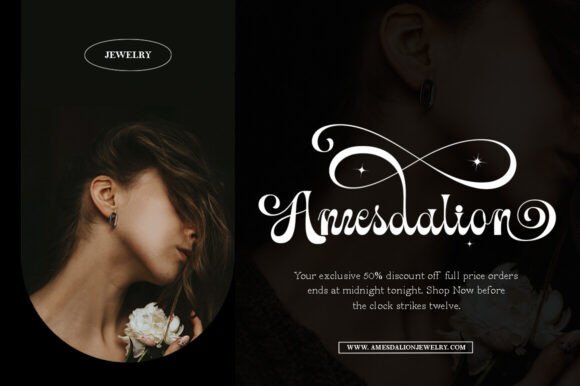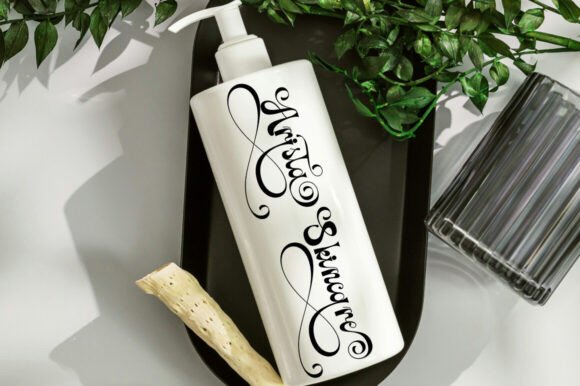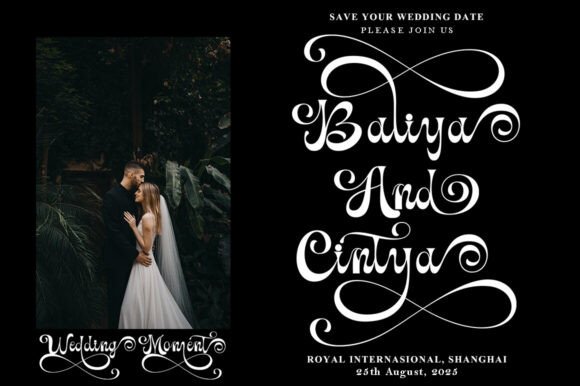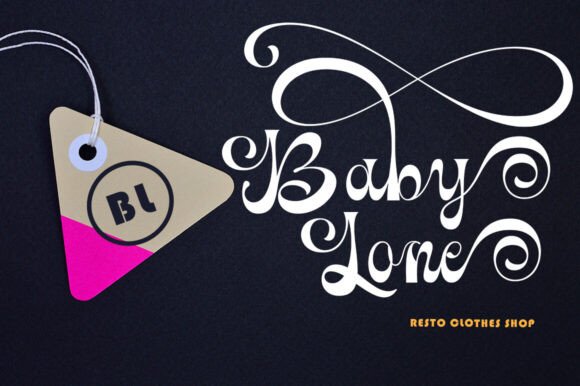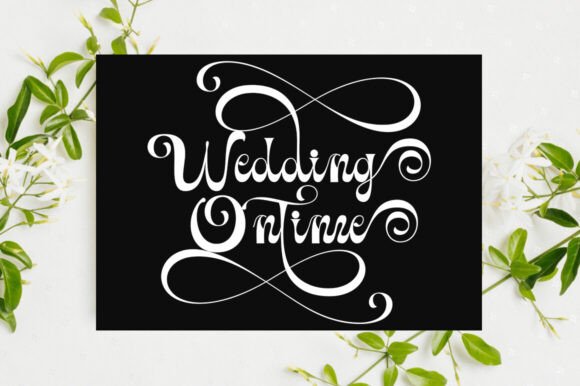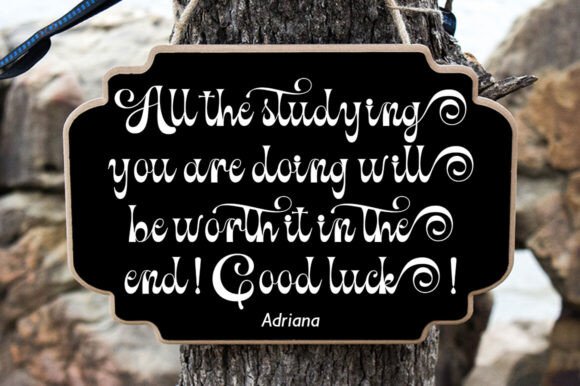
The Art of Sophistication: Introducing Bulgota Font
Have you ever stared at a blank page, searching for the perfect font to convey the essence of your brand? It’s that moment of creative frustration, when the right words and images just don’t seem to come together. But what if you could infuse your designs with a touch of timeless elegance, a dash of sophistication that elevates your work to new heights?
Enter Bulgota Font, a luxurious script font designed to add a sense of refinement and luxury to your upscale designs. With its flowing curves and delicate strokes, every letter is a work of art that exudes class and style. Whether you’re designing a high-end fashion label, a luxury hotel brochure, or a premium product packaging, Bulgota Font is the perfect choice to give your work a touch of sophistication.
Bulgota Font Key Features
- Font Family: Bulgota
- Unique Characteristics: Bulgota Font features a unique blend of Latin and Cyrillic scripts, making it suitable for multilingual applications
Bulgota Font Review
I recently had the chance to work with the Bulgota font, and I’m excited to share my thoughts on this unique typeface.
- The Bulgota font has a beautiful, hand-crafted feel to it, making it perfect for projects that require a personal touch.
- The font’s irregularities and imperfections give it a charming, human quality that sets it apart from more uniform fonts.
- The font’s range of weights and styles offers a lot of flexibility, making it suitable for a wide range of design applications.
- The Bulgota font’s irregularities can sometimes make it difficult to read, particularly in smaller sizes or at a distance.
- The font’s unique style may not be to everyone’s taste, and some designers may find it too unconventional for certain projects.
Overall, I think the Bulgota font is a great choice for designers who want to add a touch of personality to their work. While it may not be suitable for every project, its unique charm and flexibility make it a valuable addition to any designer’s toolkit.
Tips for Getting the Most Out of Bulgota Font
Use Bulgota Font for titles, headings, and emphasis to add a touch of elegance to your designs.
Combine Bulgota Font with other fonts for a unique and visually appealing look.
Alternatives to Bulgota Font for Designers
Montserrat is a sans-serif font that is highly versatile and can be used in a wide range of applications. It is a modern font that is designed to be clean and legible, making it perfect for body text and headings. Montserrat is a great alternative to Bulgota Font for designers who want a font that is both modern and timeless.
Comparison: Montserrat Font has a more geometric and modern feel compared to Bulgota Font, which has a more vintage and distressed look. Montserrat is also more versatile and can be used in a wider range of applications.
Great Vibes is a script font that is perfect for designers who want to add a touch of elegance and sophistication to their designs. It is a beautiful font that is designed to be used in titles and headings, and is perfect for creating a sense of luxury and refinement. Great Vibes is a great alternative to Bulgota Font for designers who want a font that is both elegant and eye-catching.
Comparison: Great Vibes Font has a more elegant and refined feel compared to Bulgota Font, which has a more distressed and vintage look. Great Vibes is also more suited for titles and headings, while Bulgota Font is better suited for body text.
Open Sans is a sans-serif font that is highly versatile and can be used in a wide range of applications. It is a modern font that is designed to be clean and legible, making it perfect for body text and headings. Open Sans is a great alternative to Bulgota Font for designers who want a font that is both modern and timeless.
Is the Bulgota Font suitable for print or digital use?
The Bulgota Font is designed for digital use, but it can also be used for print materials. However, keep in mind that the font’s design and rendering may vary depending on the printing process and paper quality. For best results, use the font at a high resolution (at least 300 DPI) and in a suitable font size for print materials.